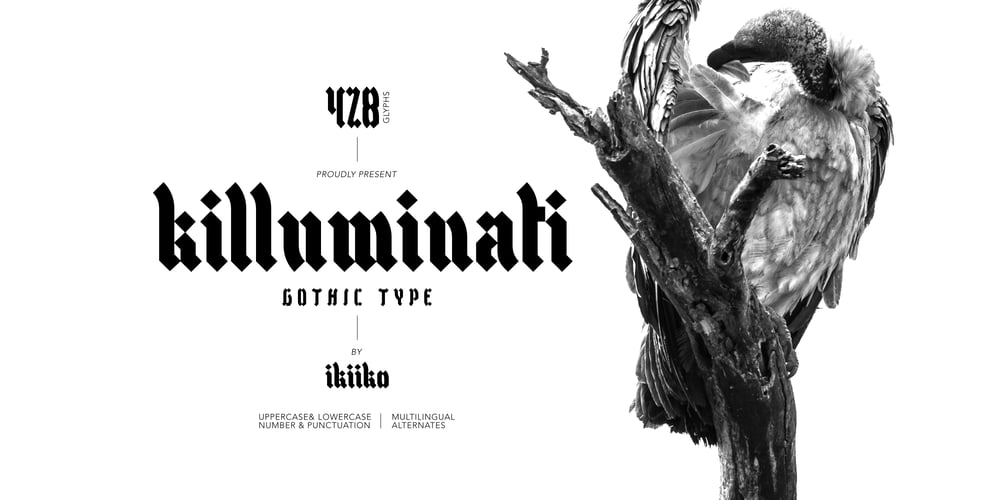
Killuminati
Killuminati font
Killuminati Font Family was designed by Andhika Pradana and published by IKIIKOWRK. Killuminati contains 1 styles and family package options. Introducing Killuminati – Gothic Type, created by ikiiko.Killuminati is a simple english old type with modern blackletter style. This typeface is inspired by gothic & classic rock band logo. killuminati has a bold font with a combination of sharp and curved corners. This font is perfect for an poster event, stencil, logotype, magazine layout, fashion stuff, quotes, and so much more.What’s included? Uppercase & Lowercase Number & Punctuation Alternates Multilingual Support Enjoy our font and if you have any questions, you can contact us by email : ikiikowrk@gmail.com